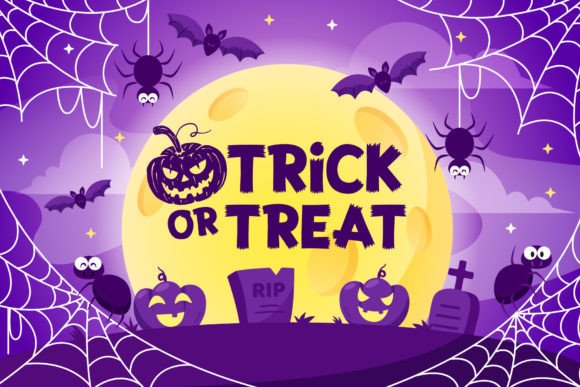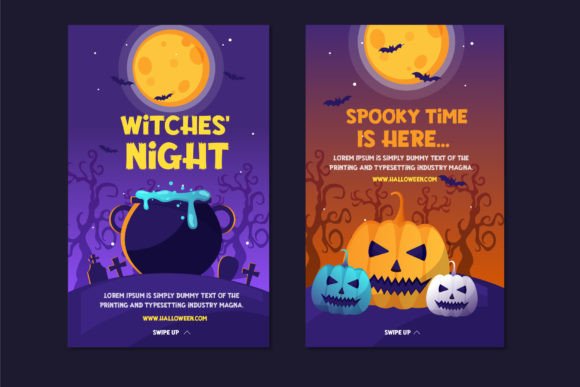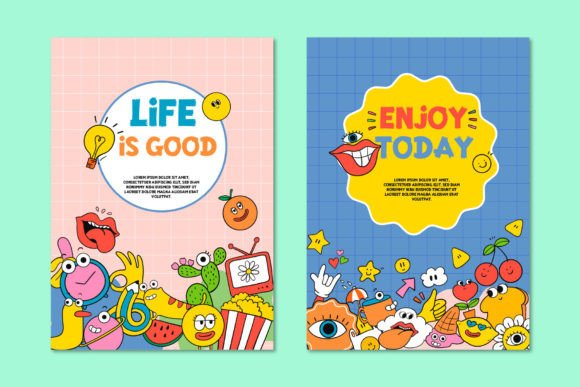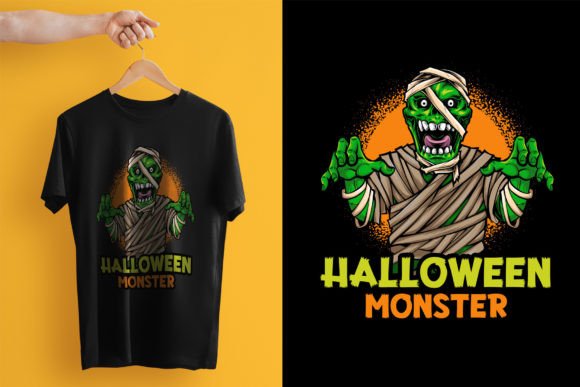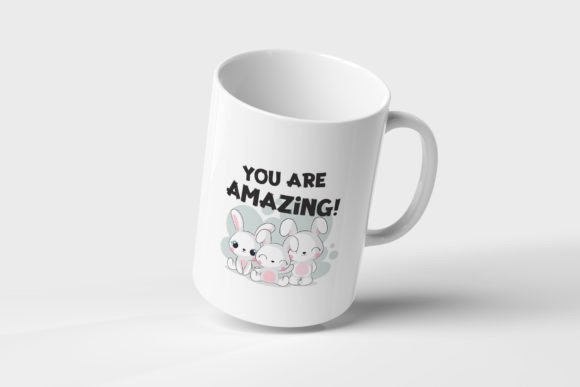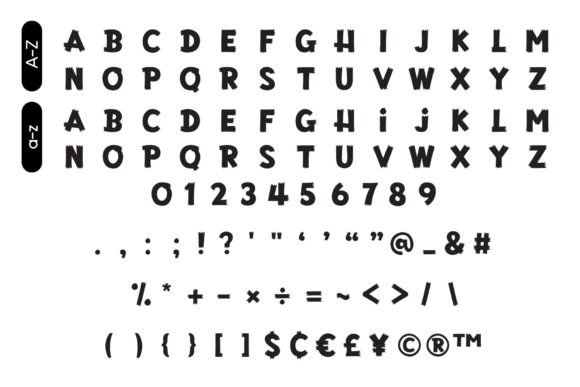
Introduction to Fox Zombie Font
Fox Zombie is a cool and fun-style display font.
Suitable for a variety of designs such as Halloween, and childrenโs themes It is perfect for logos, t-shirts, papers, print designs, website headers, photo frames, flyers, music covers, posters, image sliders, and much more.
Key Features of Fox Zombie Font